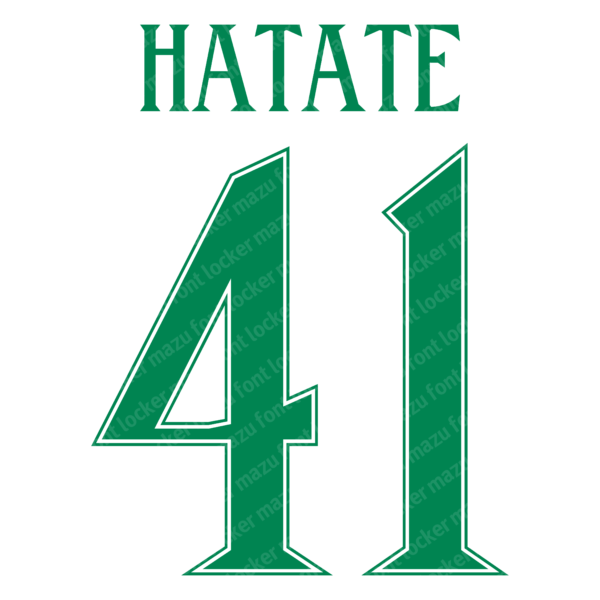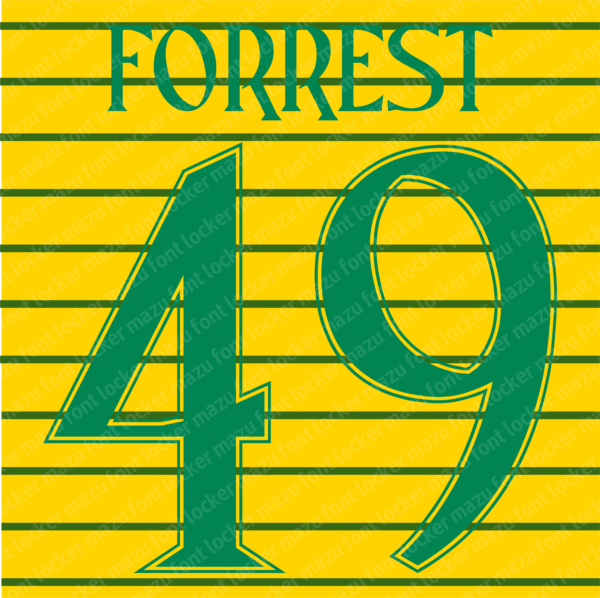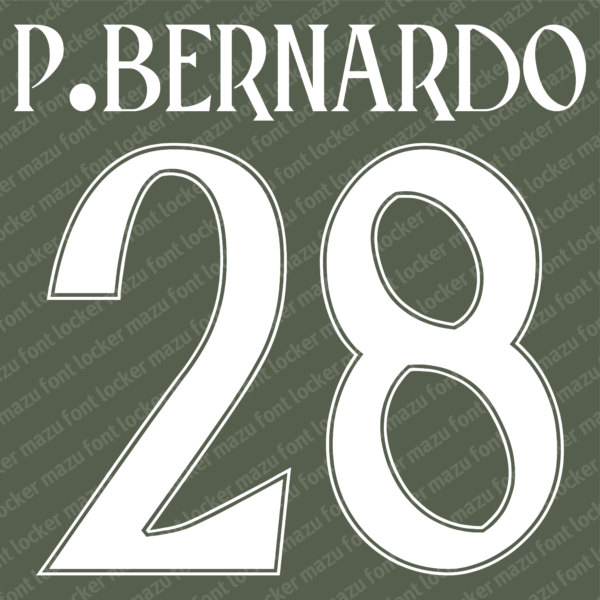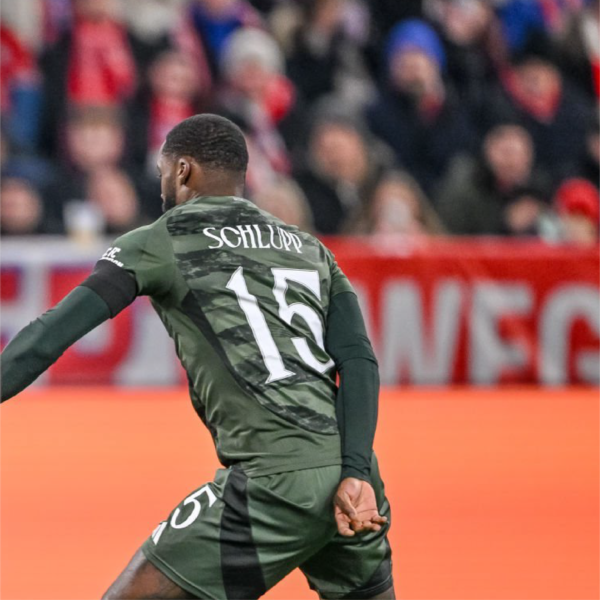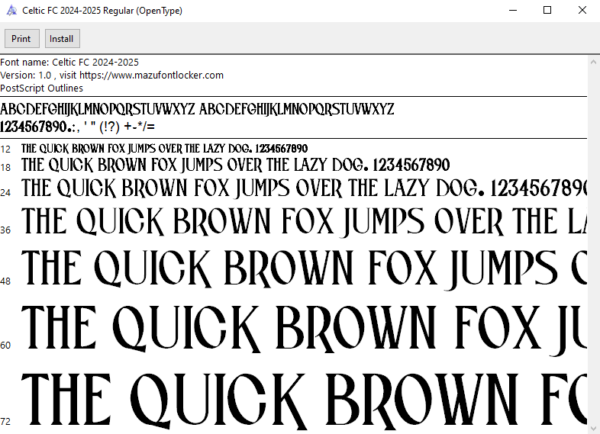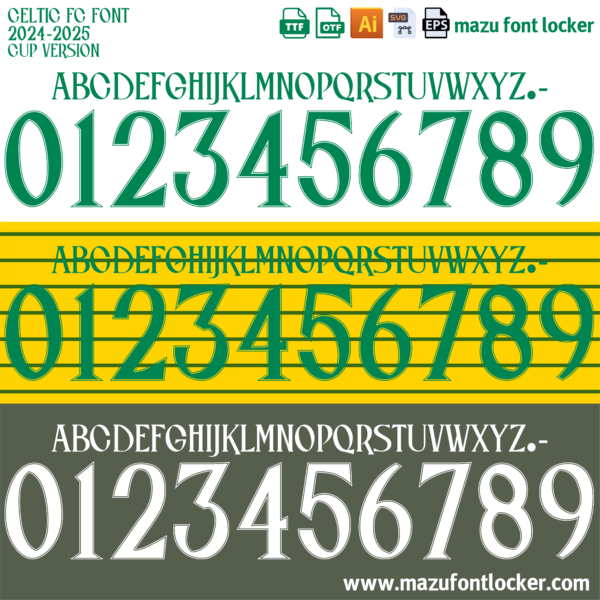
Celtic FC 2024-2025 Font Vector – Epic Green & White Masterpiece
Download the Celtic FC 2024-2025 Font and unleash the legendary power of Scottish football. This premium, high-precision football jersey font vector is expertly crafted to capture the fearless identity, rich heritage, and electric passion of Celtic FC’s dominant 2024-2025 season.
Designed with razor-sharp detail, the Celtic FC 2024-2025 Font perfectly embodies the club’s iconic green and white hoops, delivering a bold, majestic, and commanding visual presence that radiates pure Celtic pride. Every letter and number has been meticulously recreated to reflect the fighting spirit, unbreakable determination, and glorious legacy of The Bhoys on the pitch.
Elevate your designs with the heart, soul, and unstoppable energy of Celtic Park. Whether creating matchday posters, personalized kits, or exclusive supporter collections, the Celtic FC 2024-2025 Font brings authentic Scottish football magic to life like never before.
Celtic FC 2024-2025 Font Vector
The Celtic FC 2024-2025 Font is a premium, high-precision football jersey font vector meticulously engineered to capture the fearless energy, explosive passion, and electrifying identity of Celtic FC’s legendary 2024-2025 campaign.
Inspired by the mighty Bhoys and their iconic performances throughout the 2024-2025 season, this font unleashes a bold, majestic, and powerful presence that radiates unbreakable Celtic pride, rich heritage, and unstoppable Scottish football spirit. Every letter and number has been painstakingly recreated with razor-sharp precision to embody the vibrant green and white identity, fighting mentality, and glorious legacy that makes Celtic FC a true force on the pitch.
Feel the fire of Celtic Park. Ignite the passion. Unleash the legendary spirit of the Bhoys and the unstoppable power of Celtic FC 2024-2025.
🔥 Celtic FC 2024-2025 Font Features
• Authentic 2024-2025 Celtic FC jersey lettering style
The authentic lettering style helps recreate the classic look of the Celtic FC 2024-2025 kit with professional accuracy.
Unlike generic jersey fonts, this set is designed with a strong focus on authenticity and accuracy. Every detail is based on the original match lettering style used during the 2024-2025, helping designers and collectors create realistic football shirt designs.
This Celtic FC 2024-2025 font vector set is designed for authentic football jersey customization and works perfectly for retro football projects, collector designs, and professional sportswear artwork.